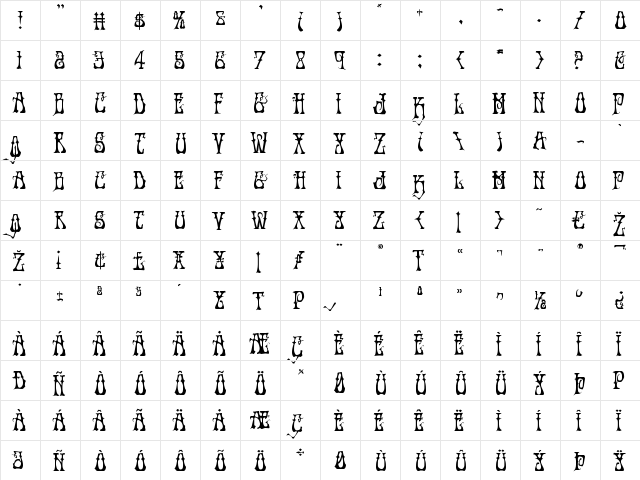
Instant Zen Drop Regular
Design Context for Instant Zen Drop Typeface
Instant Zen Drop is a composed and adaptable typeface that performs quietly and consistently across a wide range of design contexts.